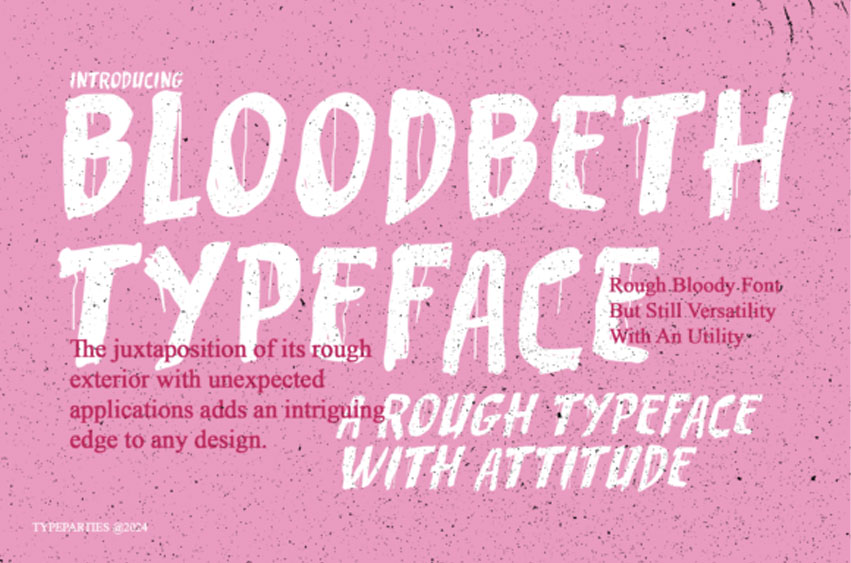
Bloodbeth Font In the vast world of typography, where countless fonts vie for attention, some stand out for their unique character and ability to make a statement. One such typeface that has been making waves in design circles is the Rought Bloody Font. This gritty, edgy font is not for the faint of heart – it carries a raw, untamed energy that can add a bold and rebellious touch to any project.
Bloodbeth Font emerged from the creative minds of type designers who sought to break away from the conventional and inject a dose of rebellious spirit into the world of typography. This font is a departure from the smooth and polished aesthetics often associated with traditional typefaces, opting instead for a rough and distressed appearance that exudes attitude and character.